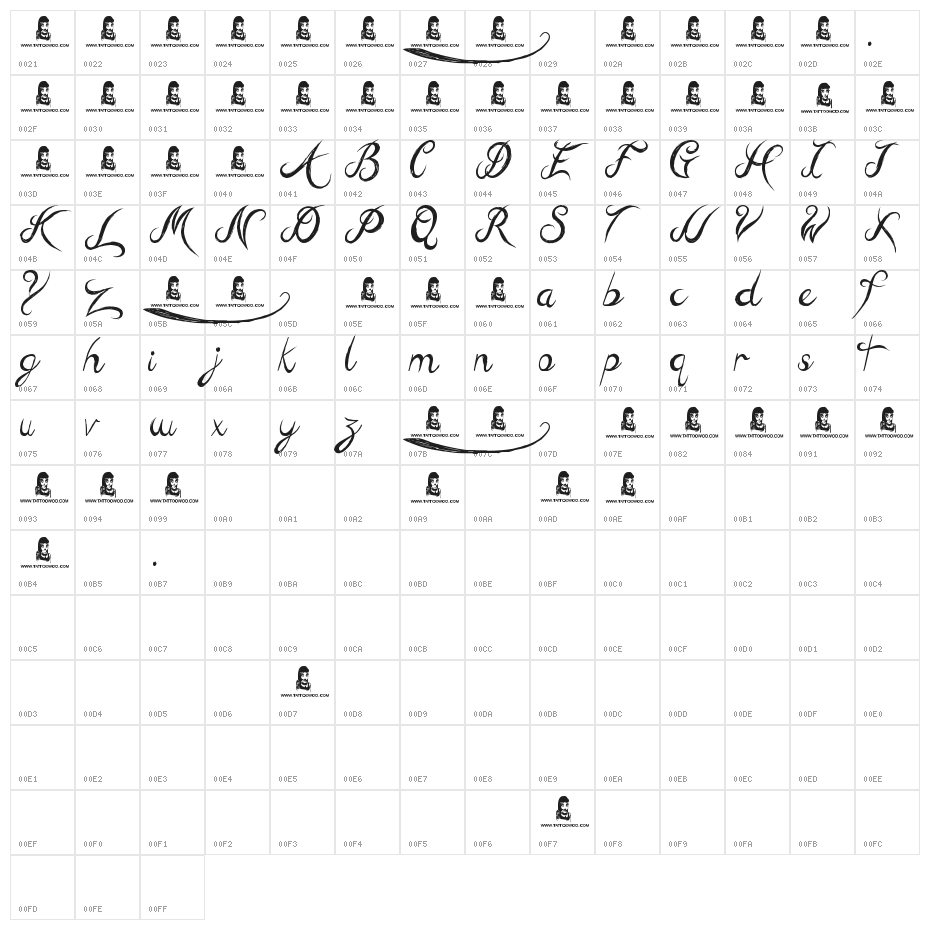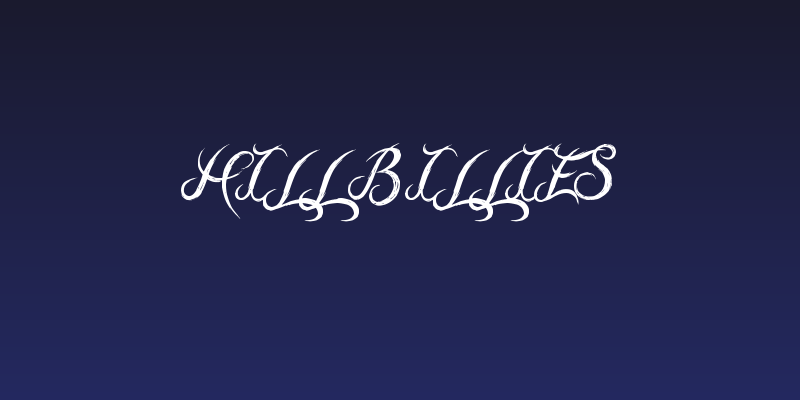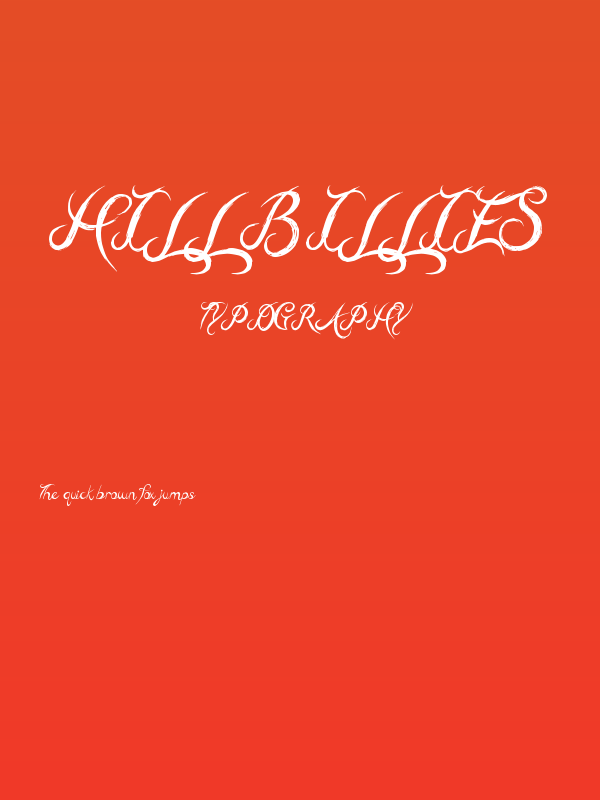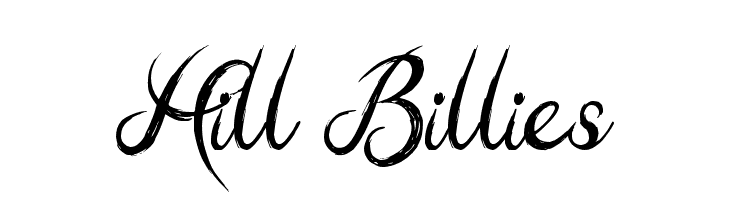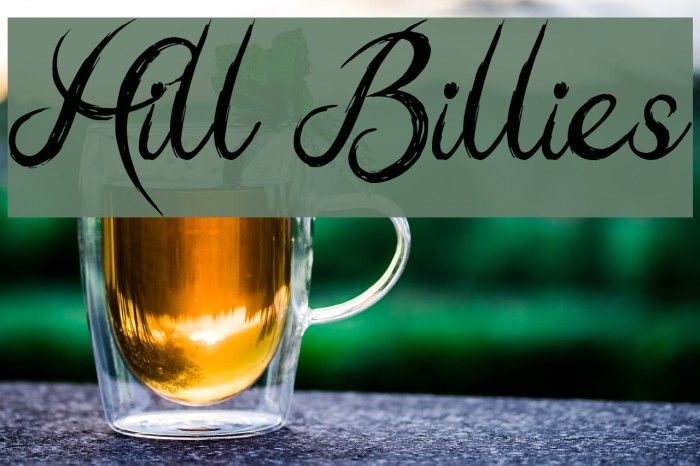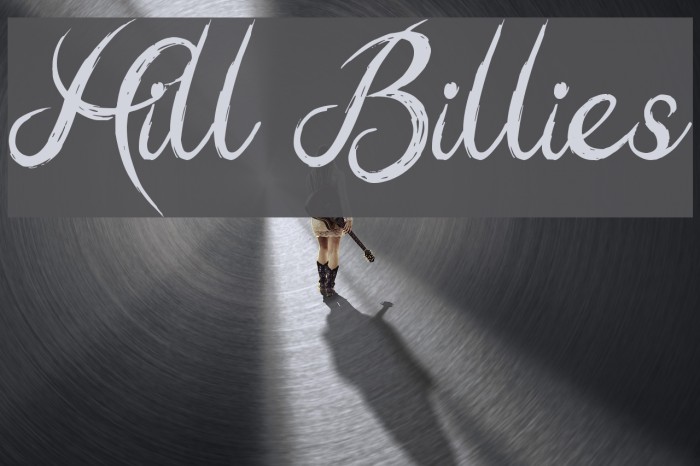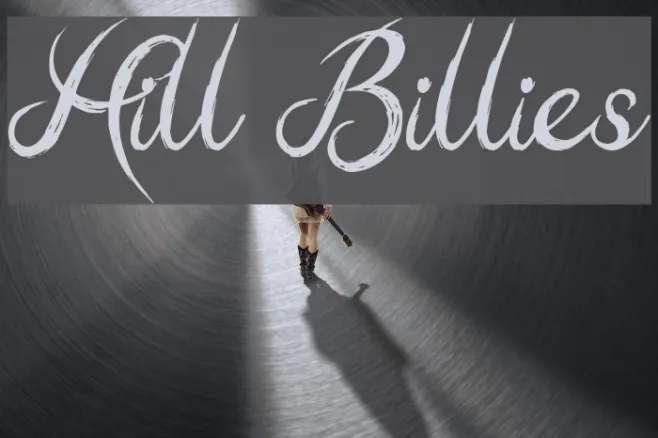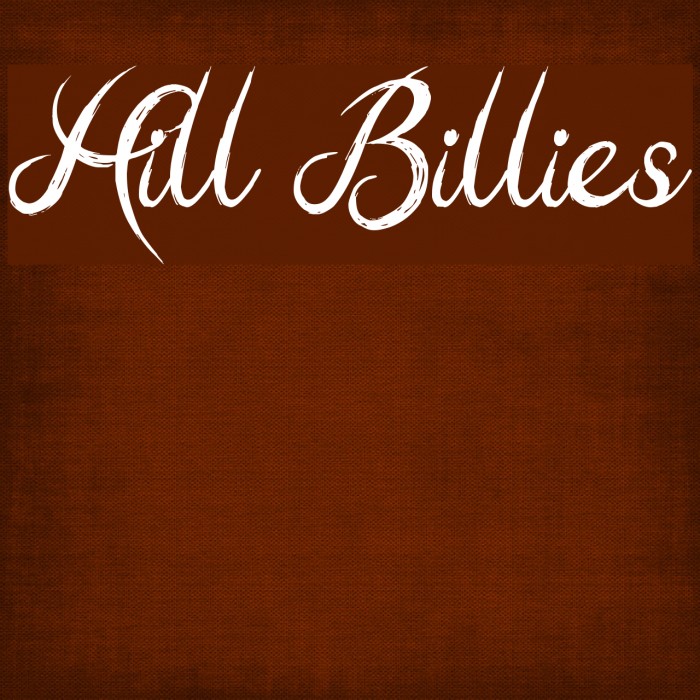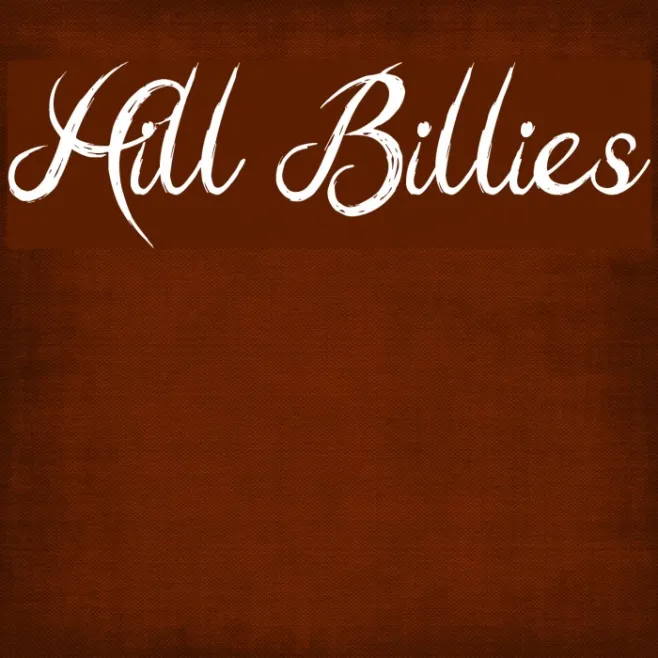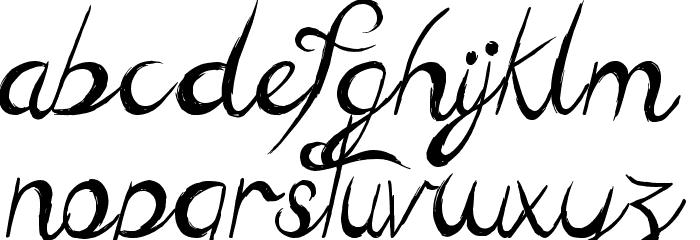
Hill Billies Font
✎ Script
Hill Billies Description
This font features an elegant and artistic script style with flowing, interconnected letters. The strokes are dynamic, with a mix of thick and thin lines that create a sense of movement and fluidity. The uppercase letters are particularly ornate, with exaggerated curves and flourishes that give them a dramatic appearance. The lowercase letters maintain a consistent style, with a slightly more restrained design that complements the uppercase. This font exudes a sense of sophistication and creativity, making it ideal for projects that require a touch of elegance and flair.
| Use Case | Logos, Invitations, Decorative headings |
| Proposed Projects | Ideal for wedding invitations, branding, logo design, and decorative headings. |